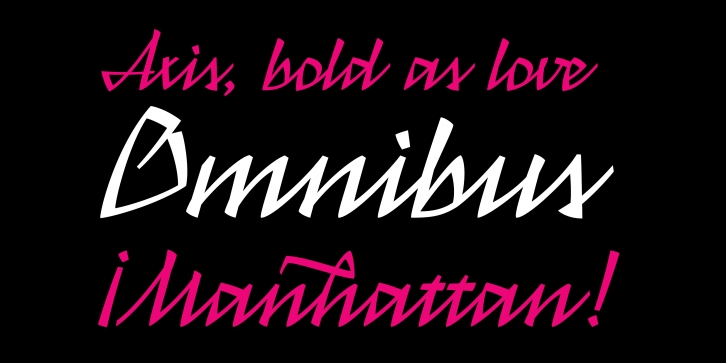
As a general rule, most script fonts are built upon elements like smooth curves and delicate swashes. The concept for Haltrix was to head in the exact opposite direction, the starting point being the designer’s own handwriting. Every decision was made during development to make the letters as aggressive and angular as possible by avoiding curves and emphasizing straight line segments. Haltrix sits amongst other such scripts as Gabriel MartÃnez Meave’s Arcana and Roger Excoffon’s marvelous Mistral (as well as Elena Albertoni’s homage, Nouvelle Vague). The typeface was also influenced by blackletter types, bringing a harder-edged approach than its predecessors. The typeface is a connected script reliant upon OpenType Contextual Alternate lookups, and with several alternates, swashes, and wide language support.